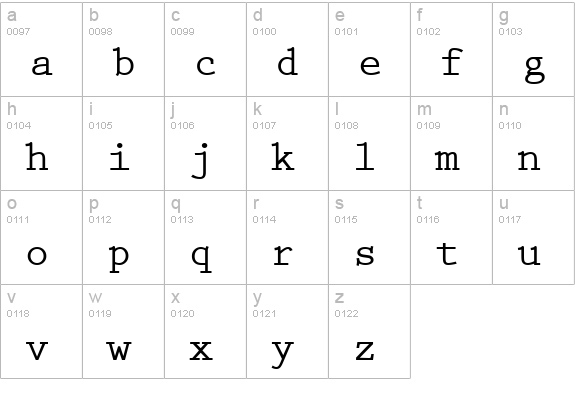
Prestige-Bold Font Details
Prestige-Bold is a strong, high-contrast variant in the Prestige typeface family \xE2\x80\x94 well suited to headlines, attention-grabbing titles, and strong calls-to-action.
Prestige-Bold is a sophisticated and elegant font that exudes a sense of refinement and style. With its bold and commanding presence, this font is perfect for making a statement in any design project. The sharp lines and clean edges of Prestige-Bold lend a modern and professional touch to any text, making it ideal for headings, titles, and other prominent text elements. What makes Prestige-Bold even more appealing is that it is available for free download at FontsMarket.com. This means that you can easily access this premium font without any cost, allowing you to elevate your designs without breaking the bank. Whether you're working on a branding project, a website design, or any other creative endeavor, Prestige-Bold is sure to add a touch of class and sophistication to your work. Download Prestige-Bold today and take your designs to the next level.